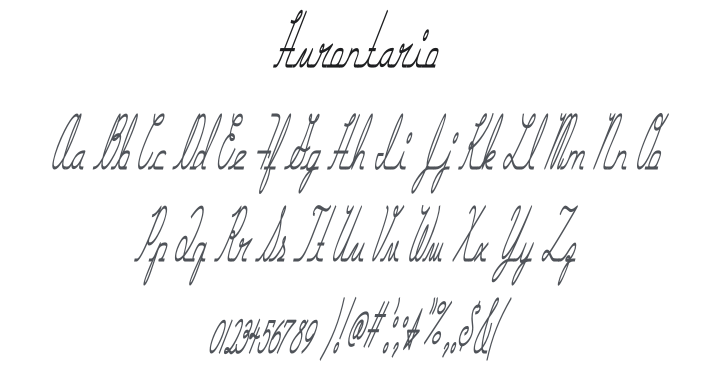
Hurontario Font
About Hurontario
Hurontario is an elegant, flowing cursive script typeface that mimics refined handwriting — thin, looping strokes connect letters naturally with an ink-pen grace, giving it a personal, intimate quality. Its delicate letterforms feel like a beautifully written letter from a bygone era. Perfect for personal branding, greeting cards, luxury packaging, and any design needing sophisticated, old-fashioned handwritten charm.